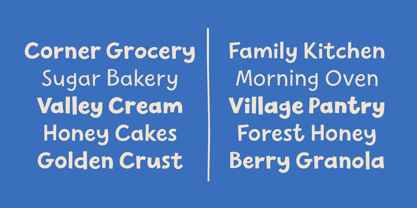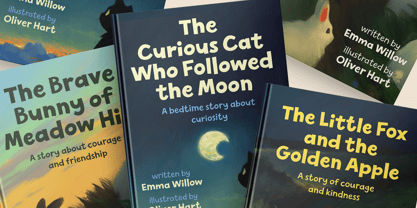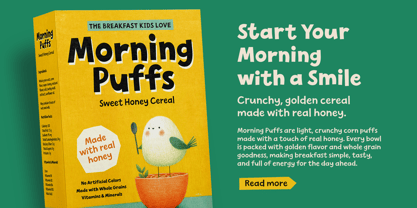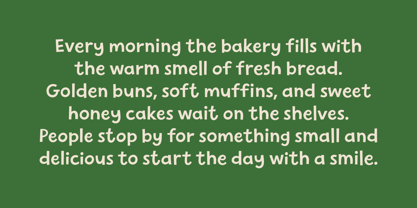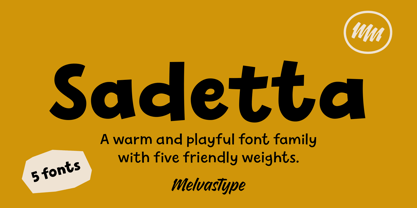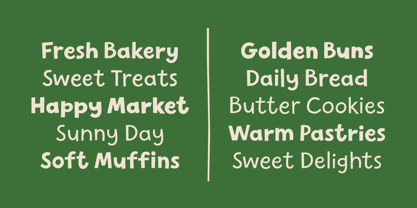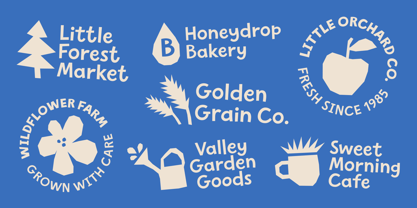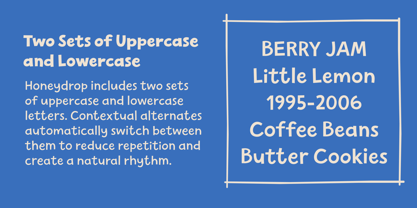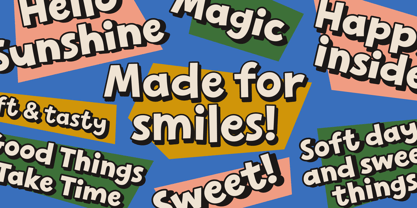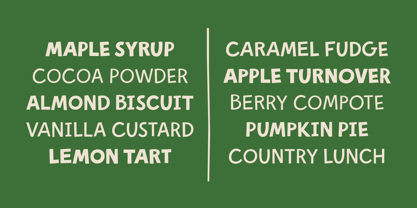
Sadetta
by Melvastype
The Sadetta Font Family was designed by Mika Melvas and published by Melvastype. Sadetta contains 5 styles and family package options. More about this family
Sadetta is a warm, hand-crafted sans-serif typeface that blends playful character with everyday readability. Its soft, rounded shapes create a friendly and approachable tone, while the balanced structure keeps it comfortable even in longer texts. To enhance its natural feel, Sadetta includes alternate uppercase, lowercase, and numeral styles that subtly vary the letterforms. These alternates reduce repetition and create a more organic rhythm, giving text a gentle, handcrafted flow. With an extended character set and thoughtful OpenType features, including alternate figures, fractions, and broad language support, Sadetta is designed for both expression and functionality. It works beautifully in packaging, branding, editorial design, and children’s products. Anywhere a soft, human touch is needed.
Designers: Mika Melvas
Foundry: Melvastype